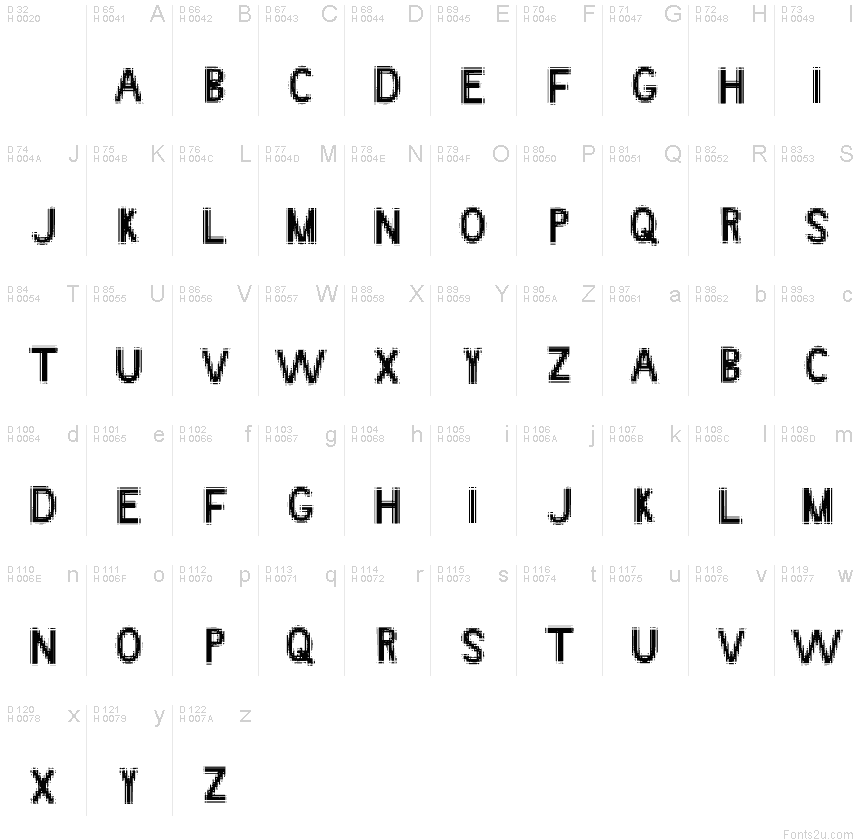
Angstrom
Angstrom font by Tom Murphy 7 is a free digital display typeface that looks like your screen just glitched mid-render. Tall, straight-backed letters are shredded with jittery horizontal noise, as if they’ve been dragged through static or corrupted data. The result is sharp, techy, and slightly chaotic-clean underlying forms wrapped in crackling, pixel-smeared texture that feels straight out of a broken terminal or a hacked broadcast.
Using Angstrom, you can push cyberpunk posters, glitch-art album covers, hacker or sci-fi titles, experimental logos, video overlays, and event flyers into full-on system-error territory. This free font shines at large sizes where every fractured edge and scrambled streak is visible; pair it with a plain geometric sans serif for body copy to keep everything readable while the Angstrom headlines do the visual distortion.
This is a digital-blurry font... Just look at it.